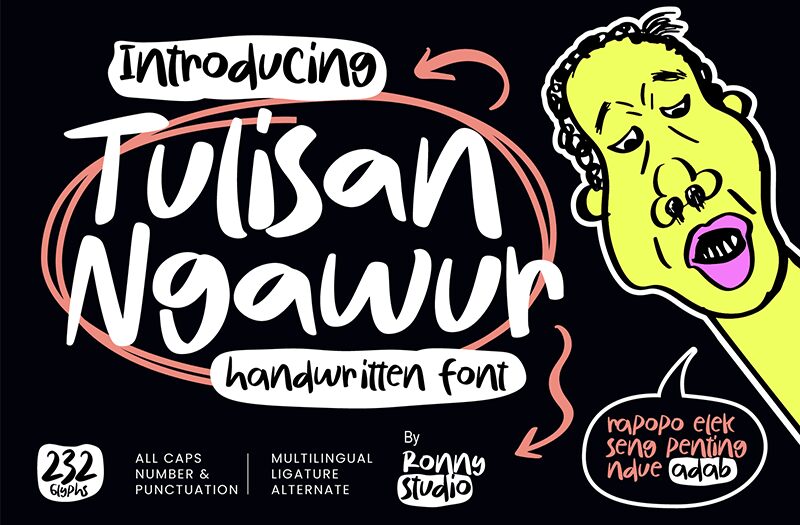
Tulisan Ngawur font designed by Ronny Studio is a free script font that bursts with personality. Reflecting a casual handwritten style, this font delivers an energetic and expressive feel, drawing from contemporary and spontaneous visual elements. It’s informal yet stylish in appearance, perfect for adding a personal touch to your designs.
Versatile and playful, Tulisan Ngawur can be used in a variety of projects that are both personal and professional. Its unique character makes it an ideal fit for logo designs, branding, invitations, greeting cards, posters, T-shirt designs, social media graphics, packaging, and more.